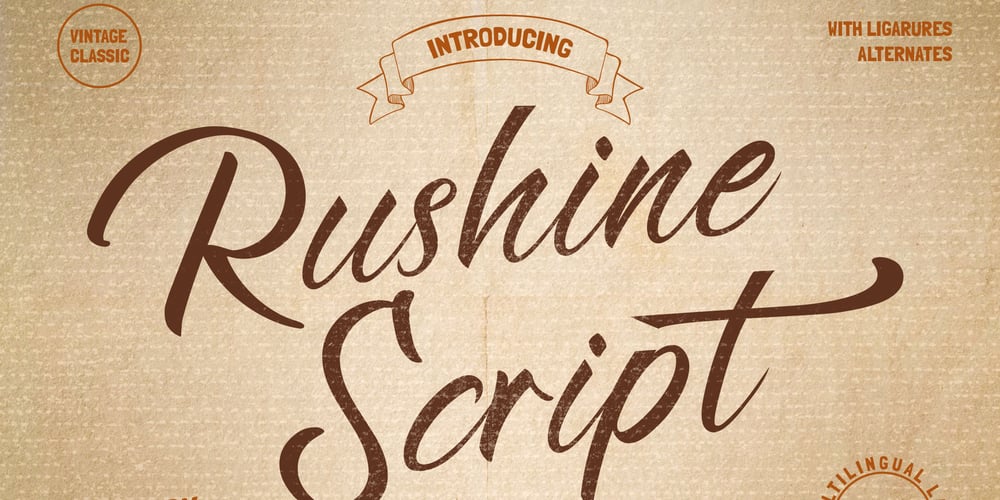
Rushine Font Family was designed by Tezar Tantular and published by Keristyper Studio. Rushine contains 1 styles and family package options. Say hello to Rushine Script, a vintage calligraphy brush stroke font. This font is good for logo design, Social media, Movie Titles, Books Titles, short text even long text letters, and good for your secondary text font with sans or serif.Featured: Standard Uppercase & Lowercase Numeral & Punctuation Multilingual : ä ö ü Ä Ö Ü ß ¿ ¡ Alternate & Ligature PUA encoded We recommend programs that support the OpenType feature and the Glyphs panel such as Adobe applications or Corel Draw. so you can use all the variations of the glyphs. Hope you enjoy our fonts!